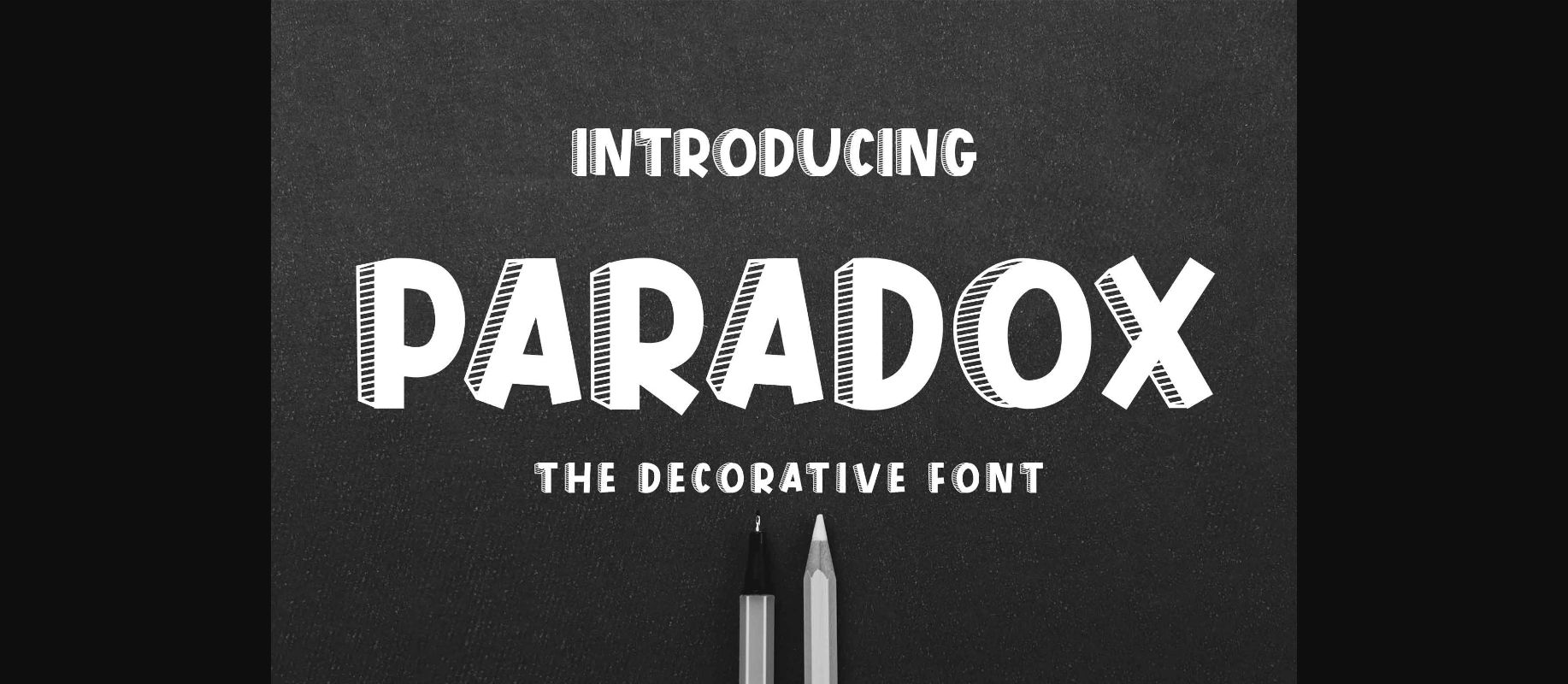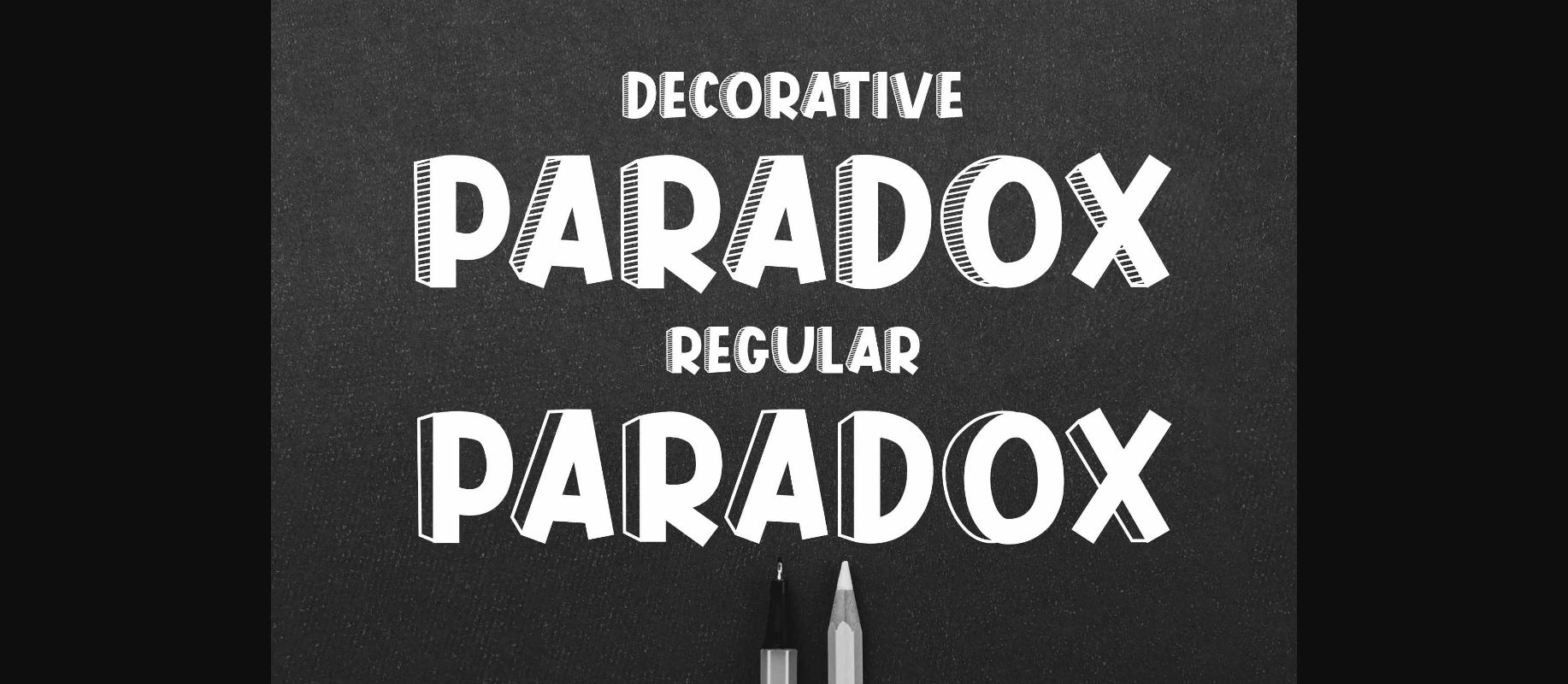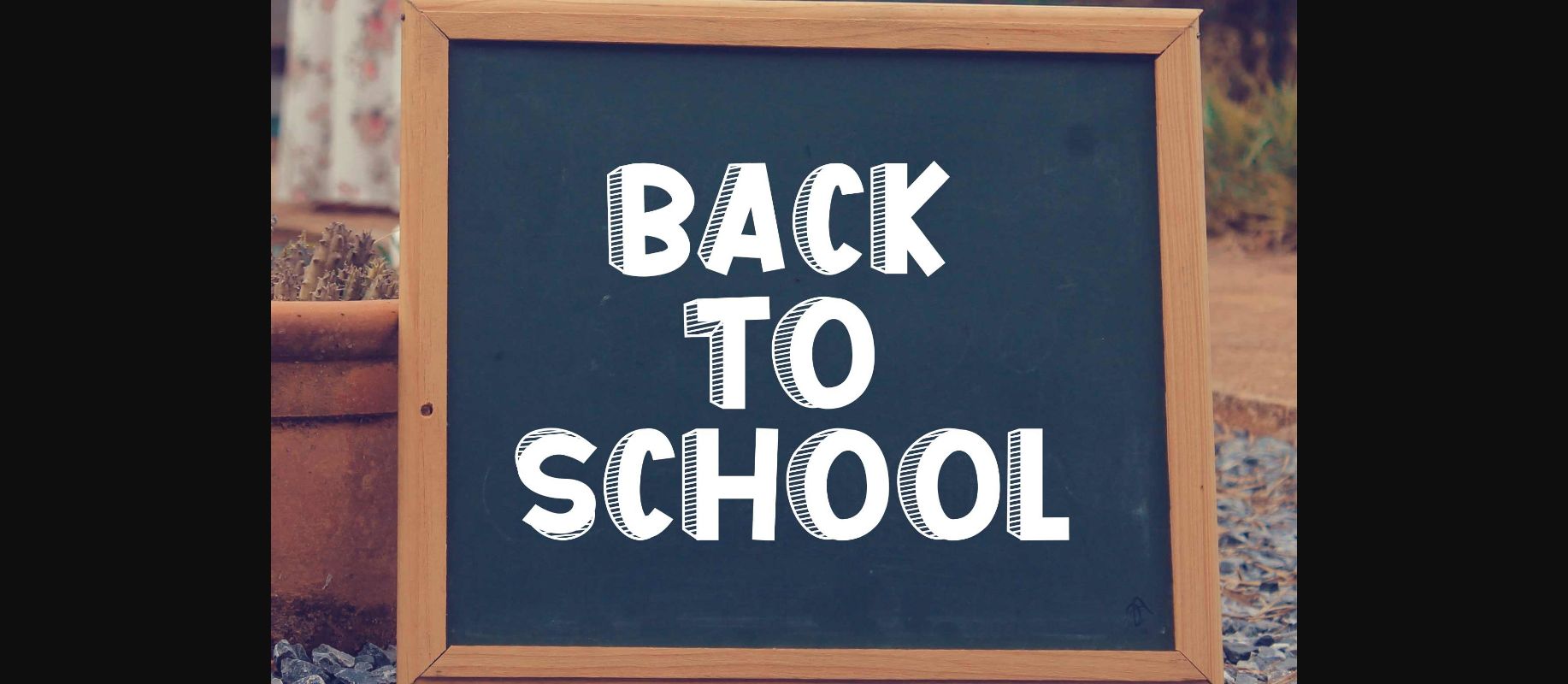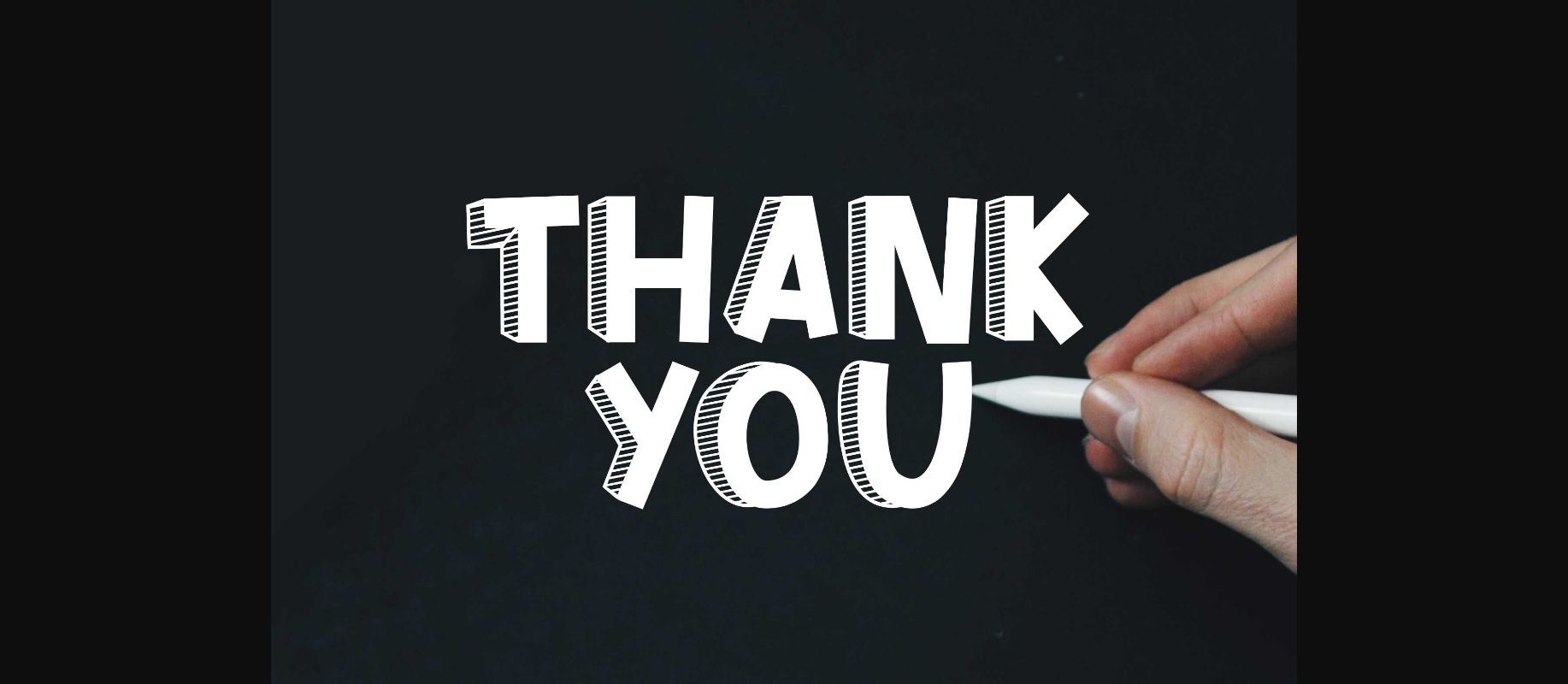
About Paradox Font
Paradox is a strong and bold decorative font. The font is specially made with a classy and natural feel. Use it to create cool poster designs, logos, branding, social media posts, and others. It has its own uniqueness that makes it extraordinary!